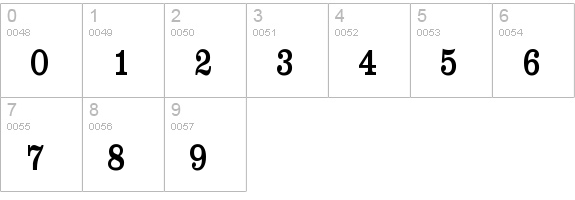
Clare-Condensed Normal Font Details
Clare-Condensed Normal is the standard, neutral, condensed-width variant in the Clare typeface family \xE2\x80\x94 well suited to general body text, paragraphs, and standard typographic work.
Clare-Condensed Normal font is a sleek and modern typeface that exudes elegance and sophistication. Its condensed design makes it perfect for conveying a sense of efficiency and professionalism in any project. The clean lines and balanced proportions of this font ensure readability and clarity in both print and digital media. What sets Clare-Condensed Normal font apart is that it is available for free download at FontsMarket.com. This means that you can easily access and use this high-quality font for your personal or commercial projects without any cost. Whether you need a font for branding, advertising, or any other design application, Clare-Condensed Normal font offers a versatile and stylish option that will elevate your work to the next level. Download it today and enhance your design projects with this exceptional typeface.